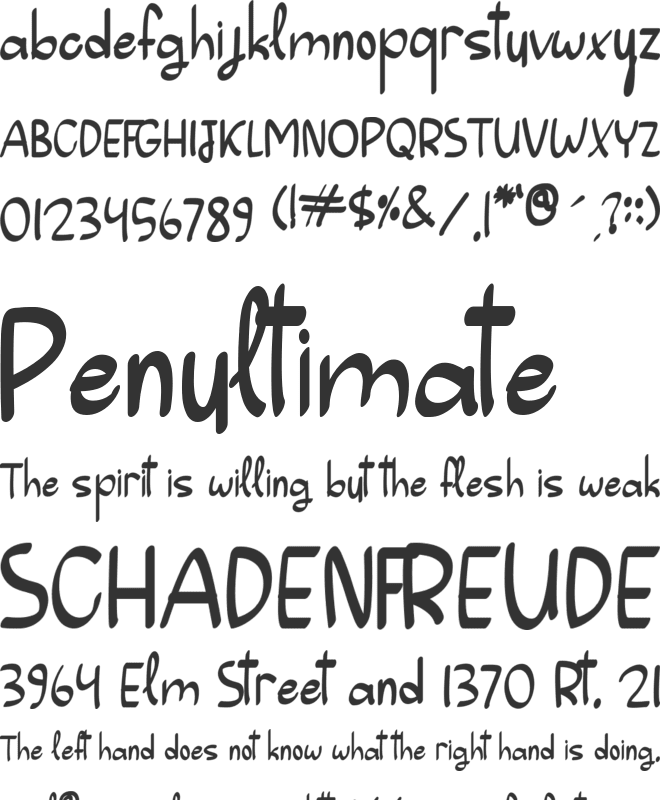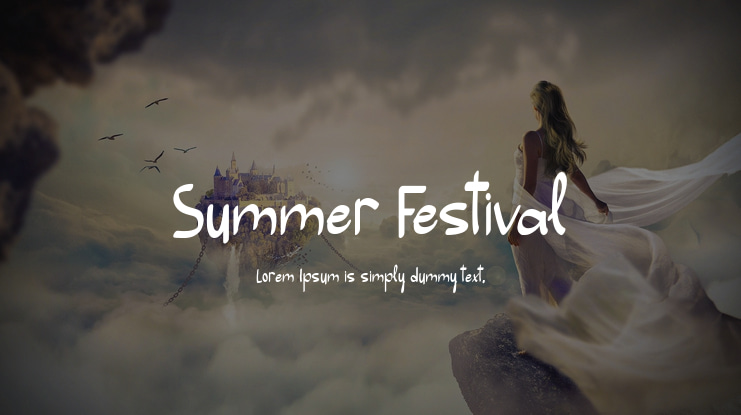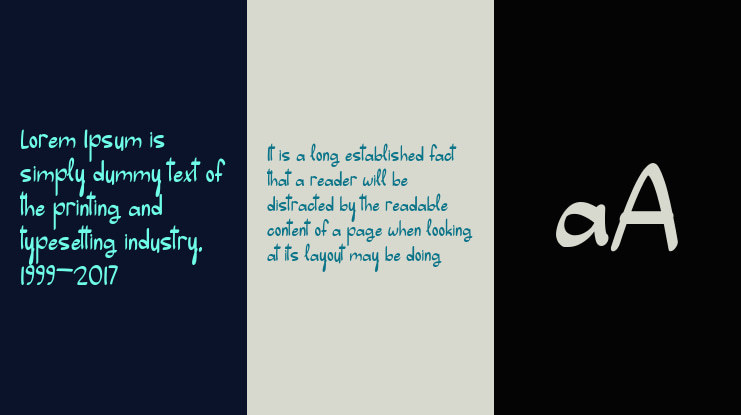
Summer Festival Font
Summer Festival is a chic, natural script font that emanates simplicity and elegance. Its stylish alternates and ligatures make this font the perfect match for any project.